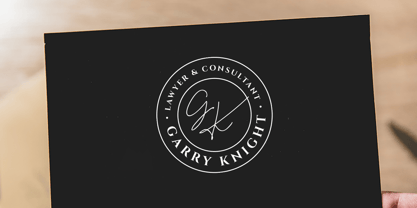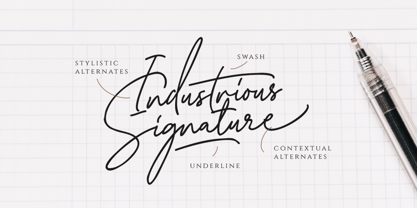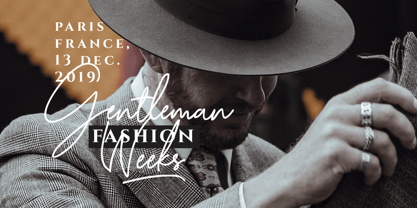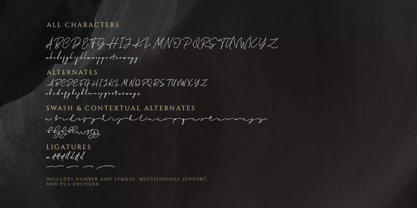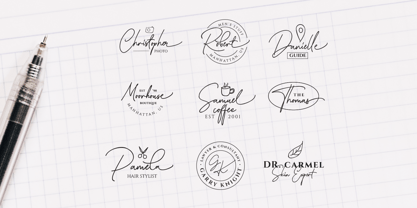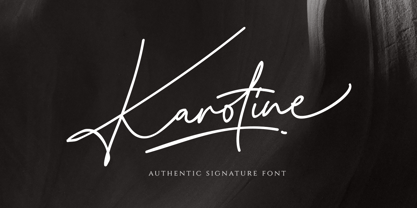
Karotine
by Sarid Ezra
The Karotine Font Family was designed by Sarid Ezra and published by Sarid Ezra. Karotine contains 2 styles and family package options.
Karotine Script is an authentic signature that contain lowercase, uppercase, symbol, and also support multi language. Katherine Script also suitable for logo branding, beautiful fashion design, suitable for wedding invitation, or handwritten quote. Also already PUA Encoded.